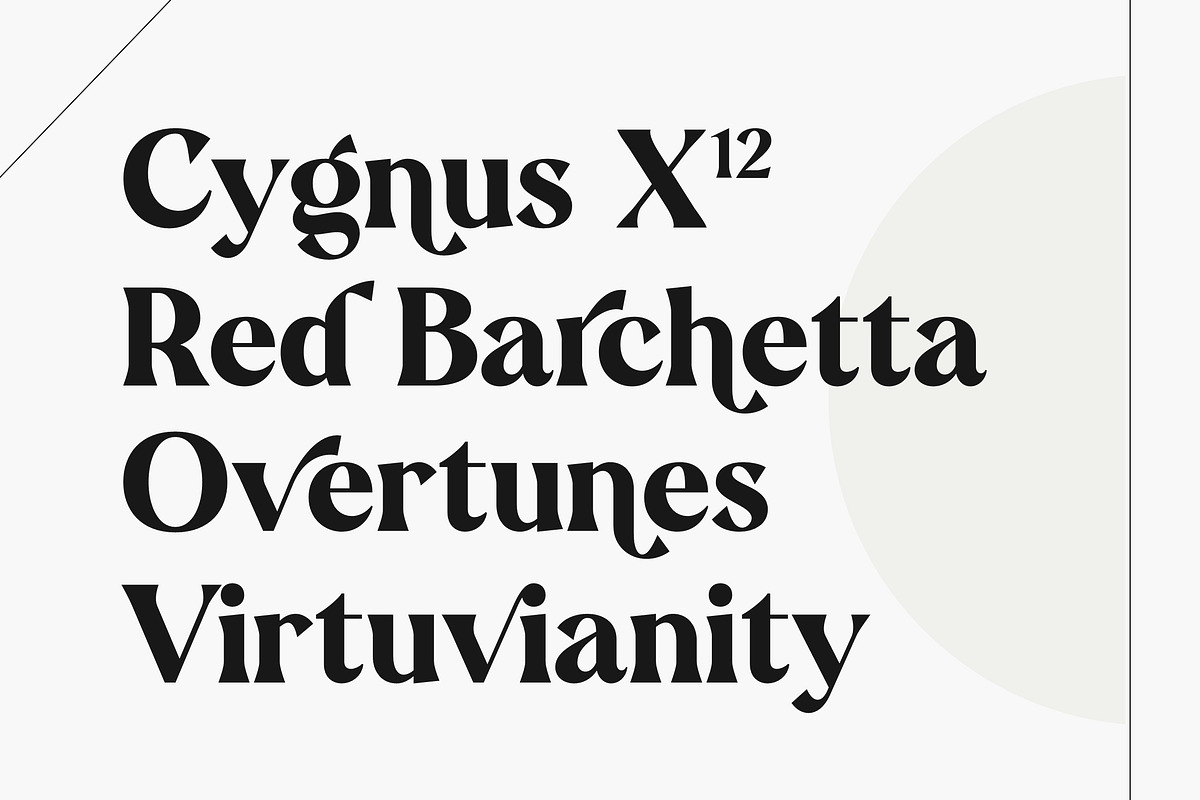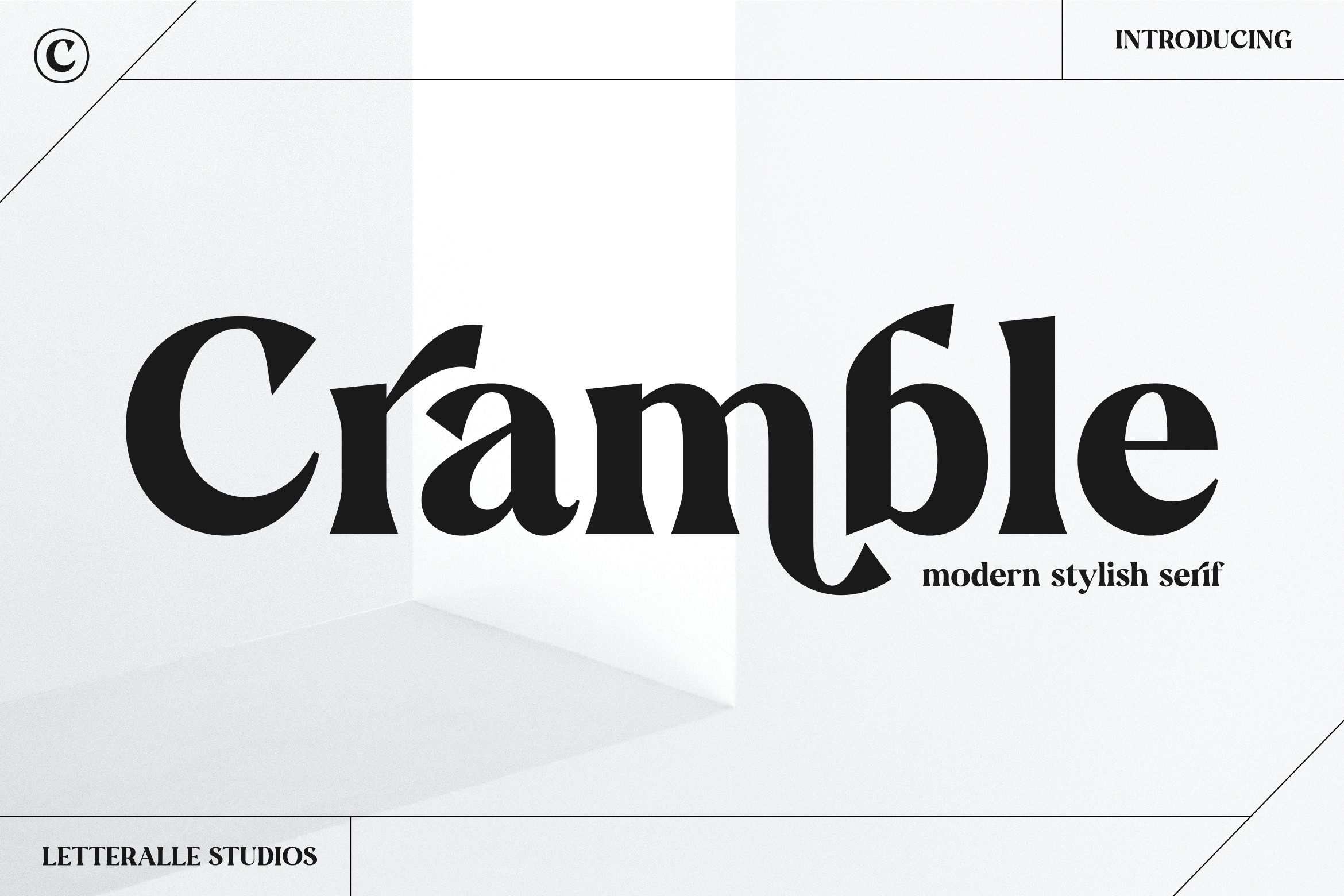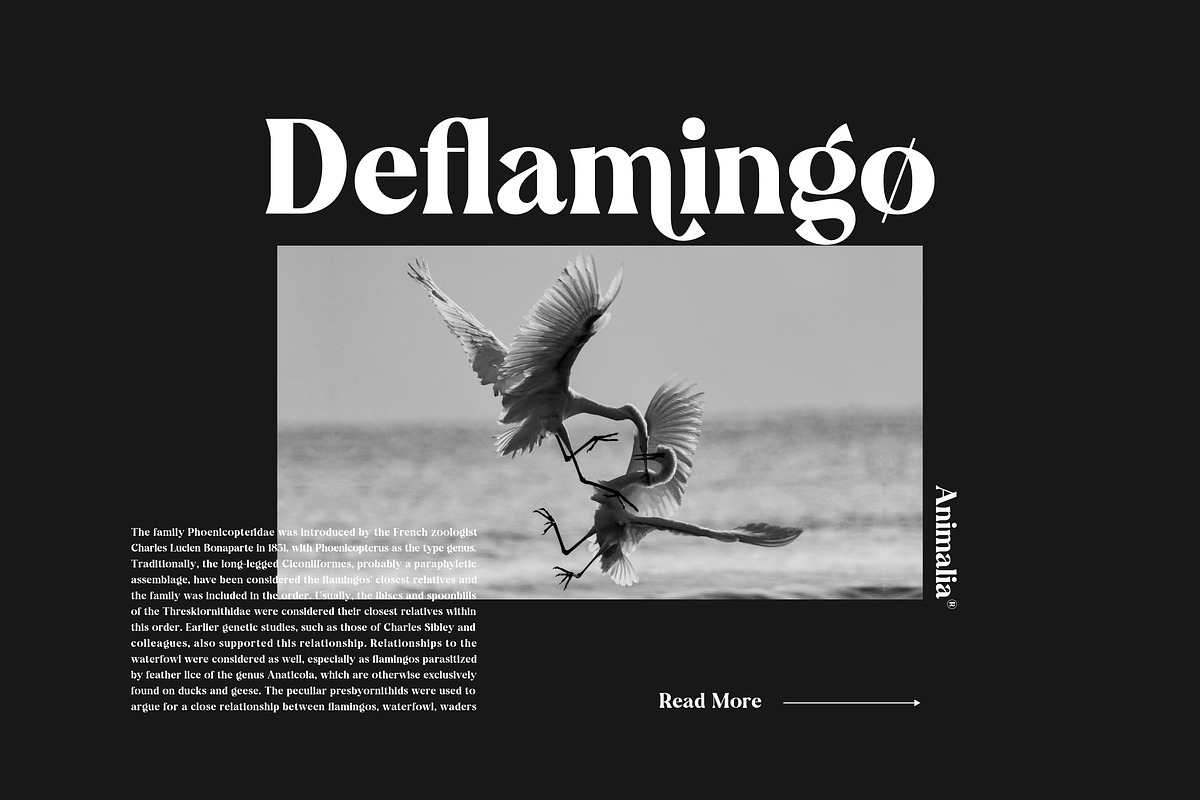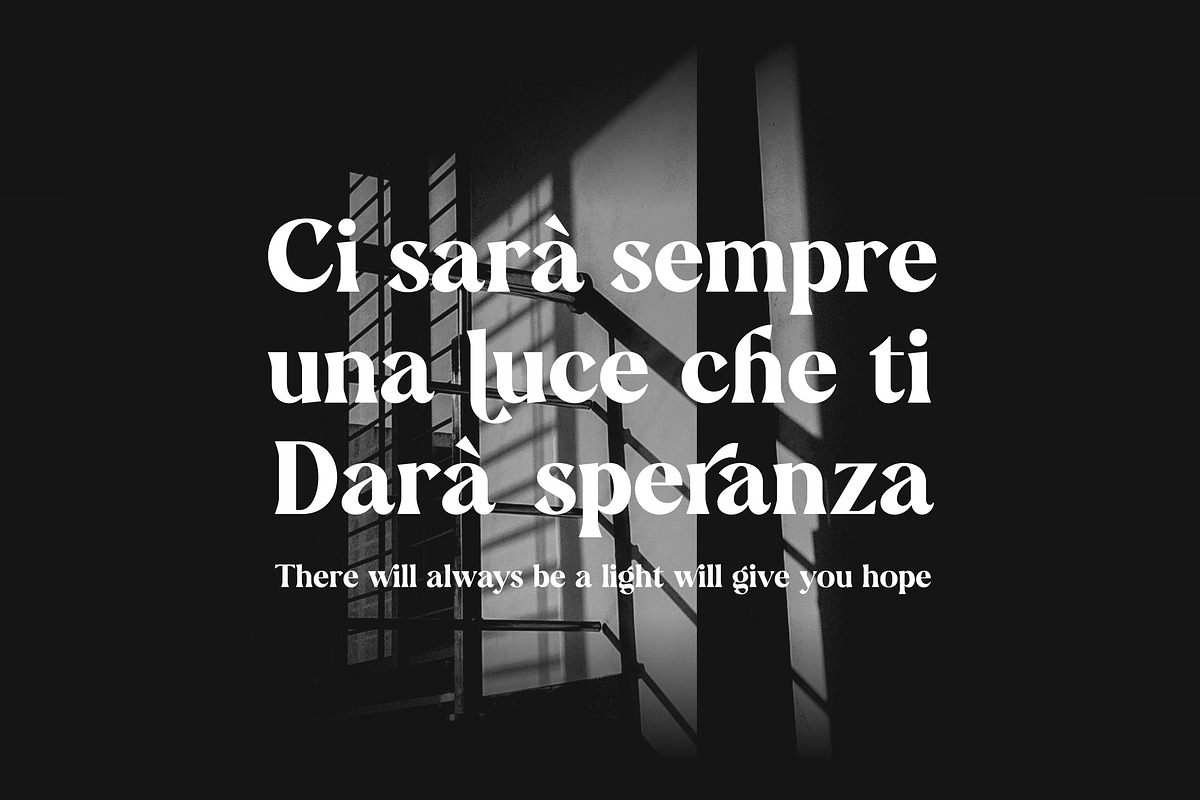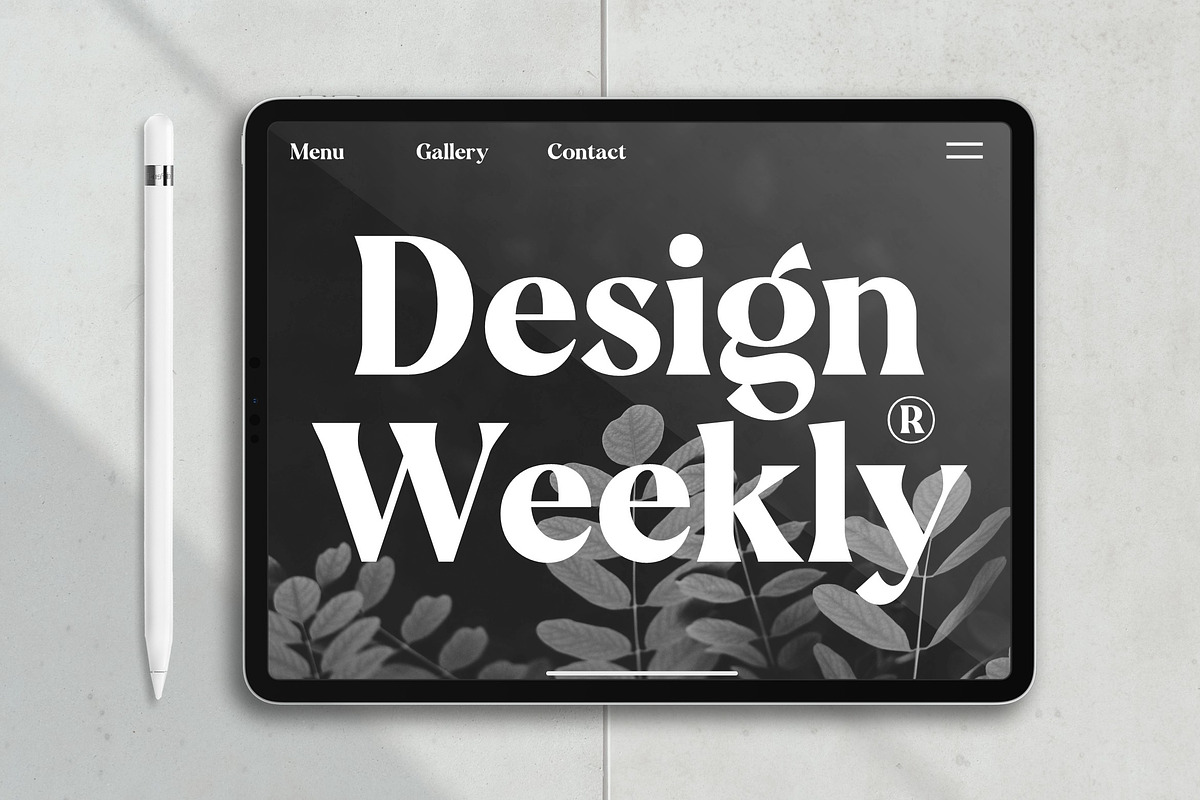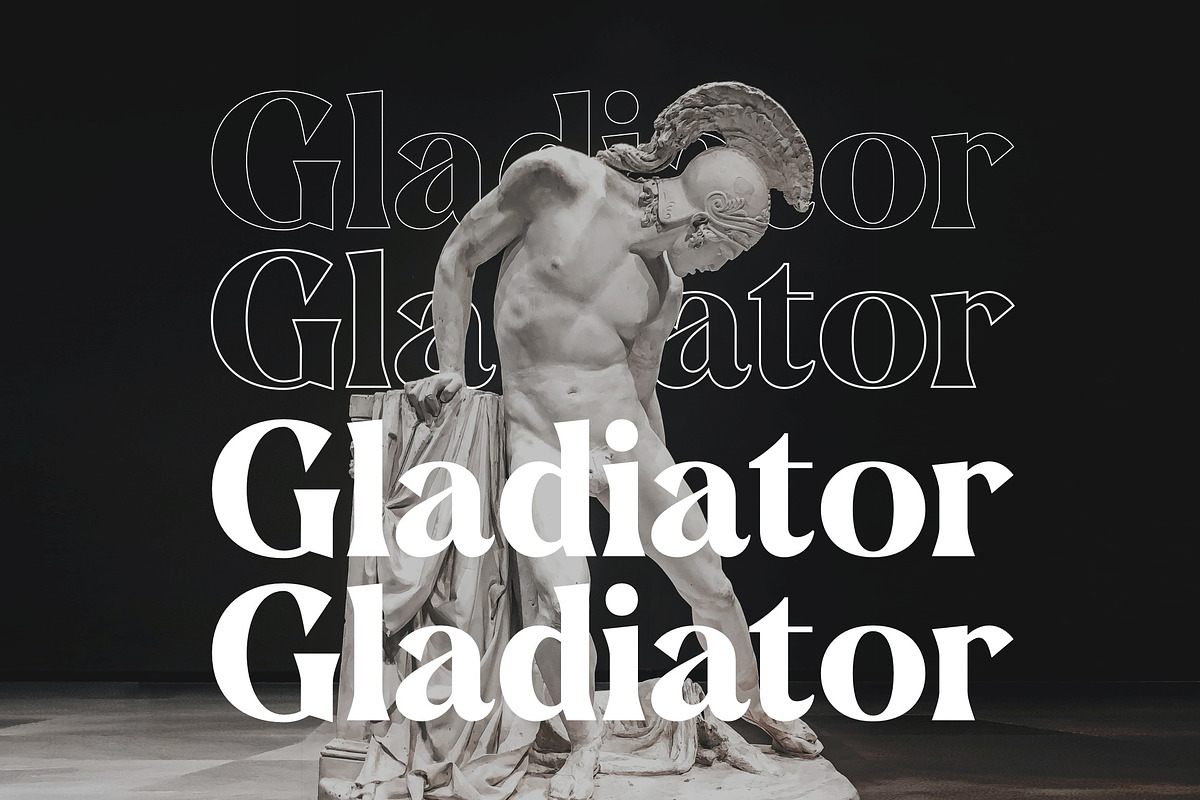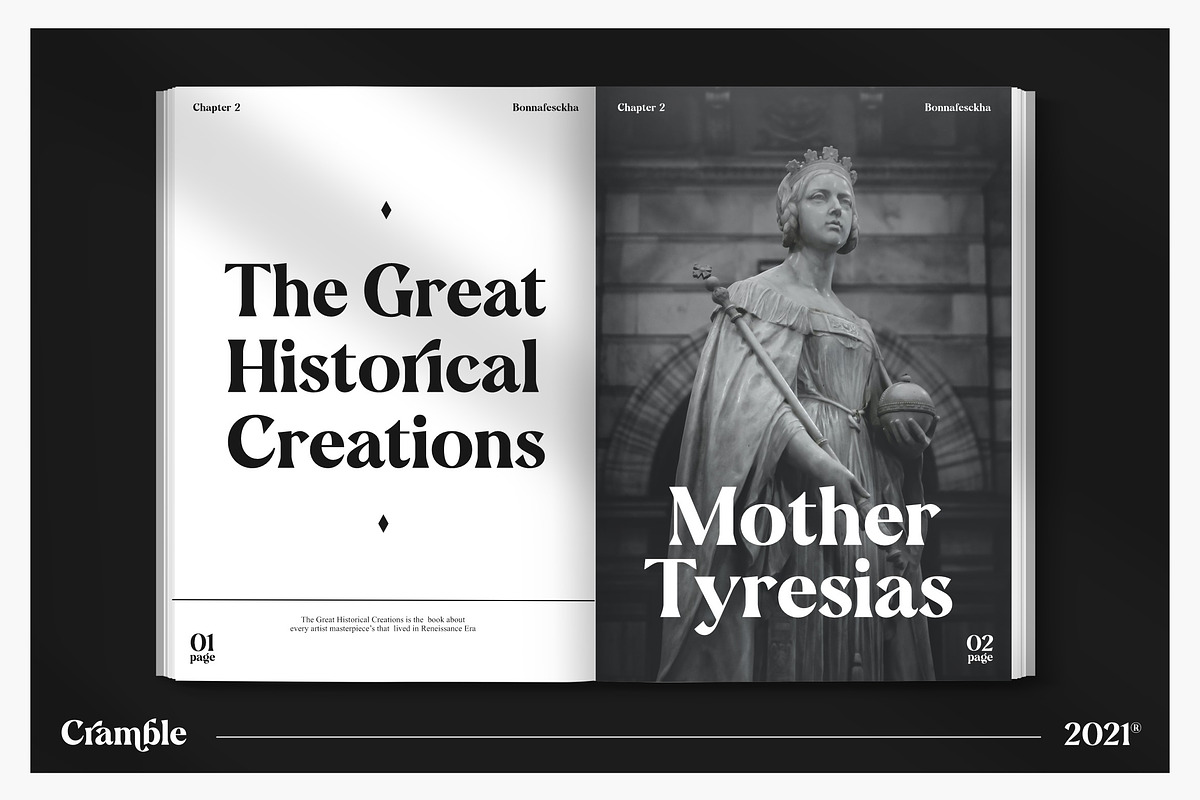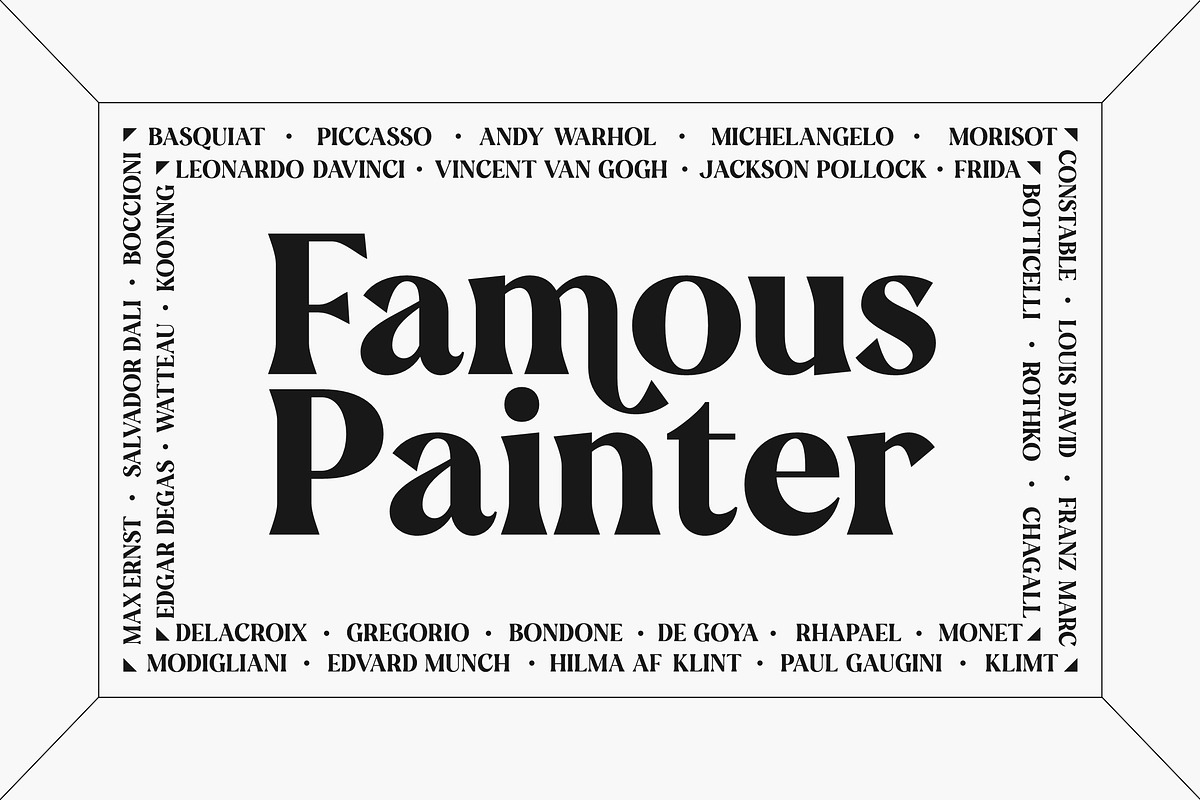
Cramble Modern Stylish Serif Font
Cramble is designed to bring a modern and clean feel. Cramble is a versatile serif with a simple yet elegant approach. Contains uppercase & lowercase characters, all punctuation & numerals. Cramble also features alternative characters to show its uniqueness.
Cramble perfect for editorial projects, Logo design, Wedding, Clothing Branding, product packaging, magazine headers, or simply as a stylish text overlay to any background image.
- Full Uppercase & Lowercase Character.
- Alternates & Ligatures.
- Numeral, Punctuation, Multilingual Accents.